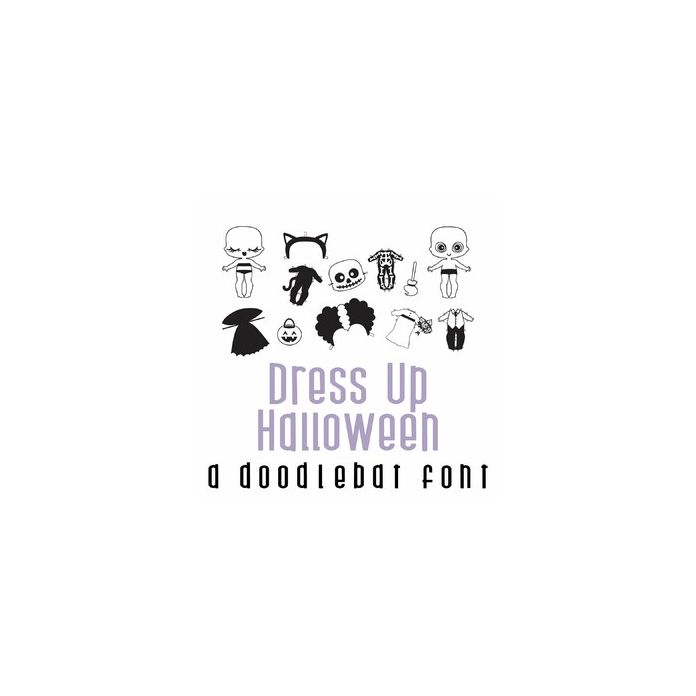
This adorable doodlebat font features 36 images of everything you need to make your own dress up Halloween dolls! Dress up Halloween dolls has images A-Z plus 0-9 glyphs.